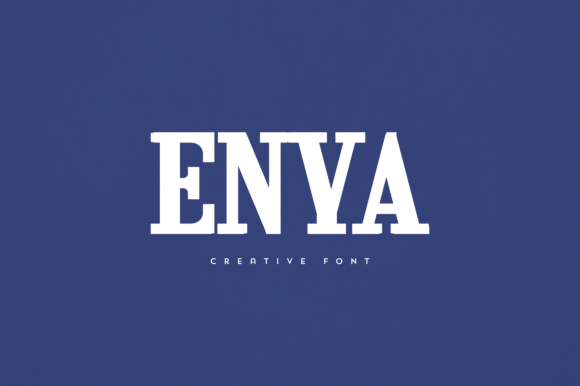
Dive into the enchanting realm of eloquence with Enya Font, a display font family crafted with an exquisite flair. This captivating font, designed by the illustrious vladfedotovv, is not merely a collection of letters; it's a symphony of elegance, ready to transform your typography into a true masterpiece.
Enya Font is not just another font; it's an experience, a journey into the world of visual aesthetics. Its graceful curves and delicate serifs dance across the page, creating an aura of sophistication and charm. Whether you're crafting a captivating logo, designing stylish homeware, adorning product packaging, or commanding attention with magazine headers, Enya Font will elevate your designs to new heights of elegance.
With its versatility, Enya Font effortlessly adapts to various creative endeavors. Its timeless beauty complements branding projects, adding a touch of class and distinction. Homeware designs adorned with Enya Font exude an aura of warmth and sophistication, inviting comfort and style into any living space. Product packaging graced with Enya Font commands attention on shelves, conveying a sense of luxury and exclusivity. And when used in magazine headers, Enya Font captivates readers with its striking presence, promising an immersive and engaging reading experience.
Enya Font is more than just a visual delight; it's a powerful storytelling tool. Its intricate details and expressive characters breathe life into your words, enhancing their impact and leaving a lasting impression. Whether you're crafting a heartfelt message, conveying a bold statement, or simply adding a touch of elegance to your everyday text, Enya Font amplifies your message with its eloquence.
Don't settle for ordinary fonts that blend into the background. Embrace the captivating beauty of Enya Font and let your words dance across the page with grace and distinction. Unleash your creativity and embark on a typographic journey like no other. Experience the transformative power of Enya Font today and elevate your designs to new heights of elegance and sophistication.